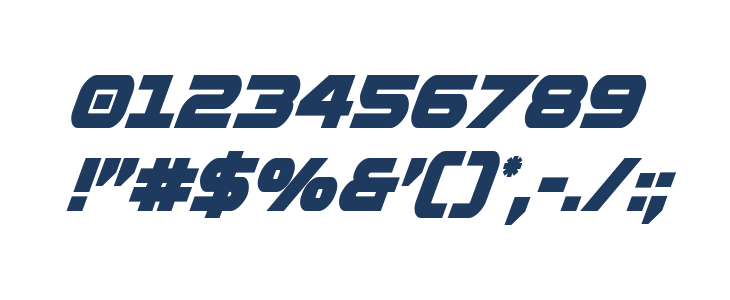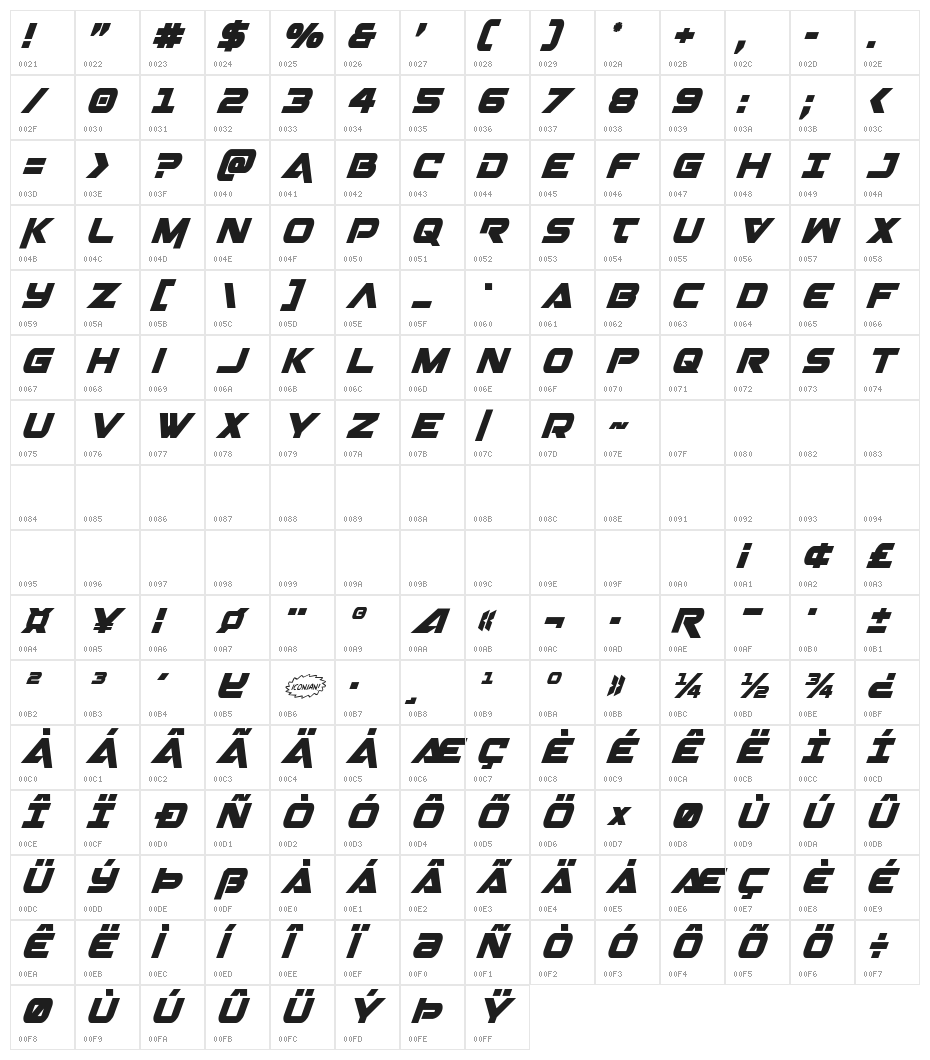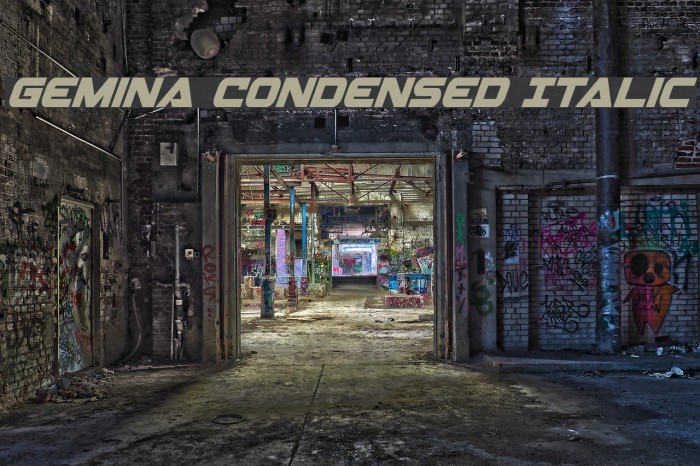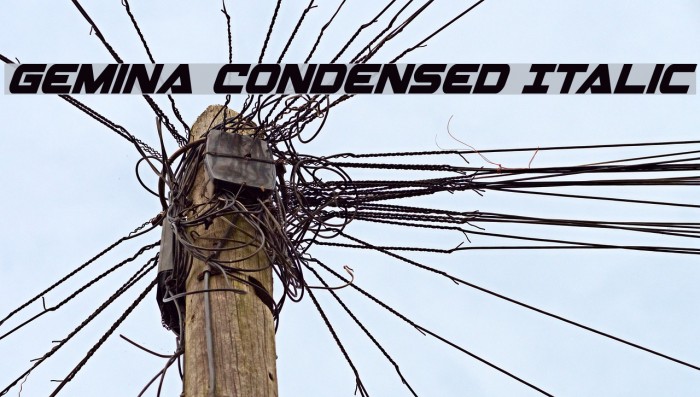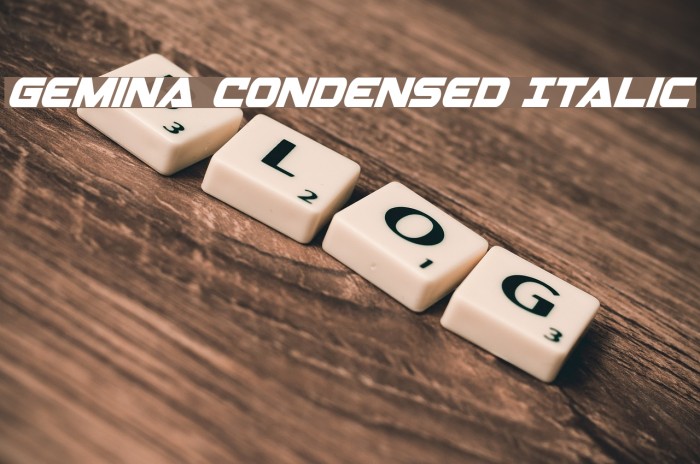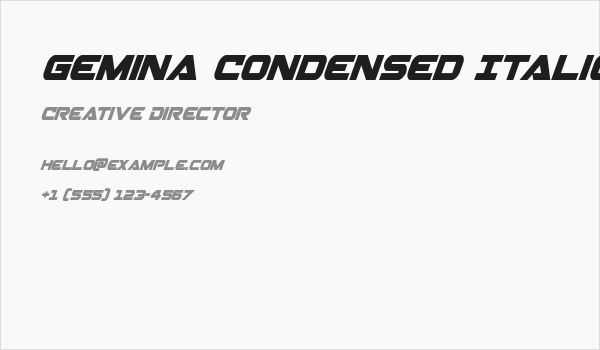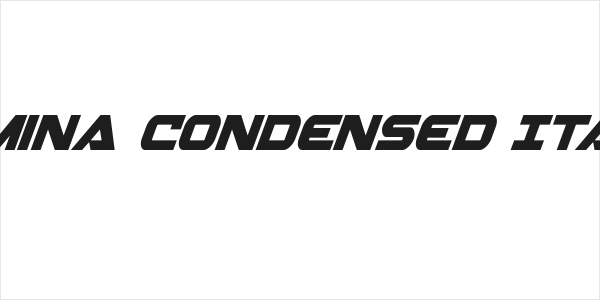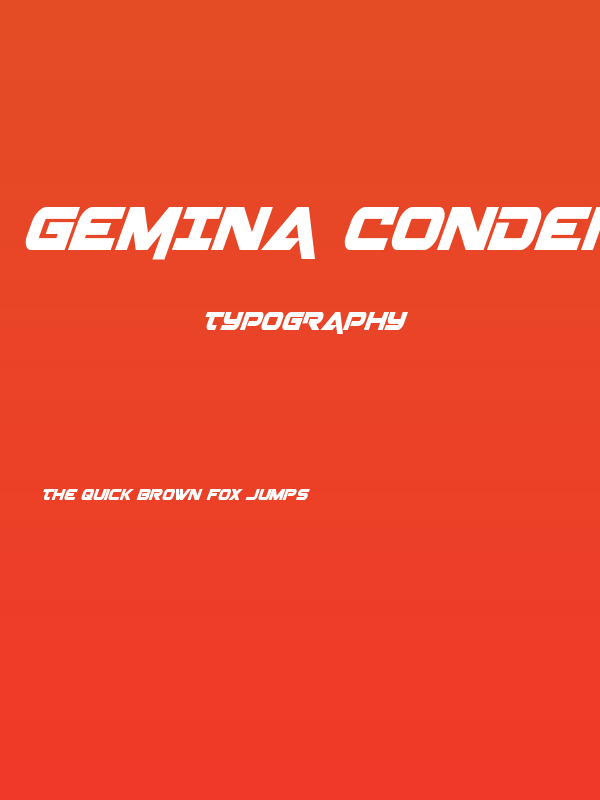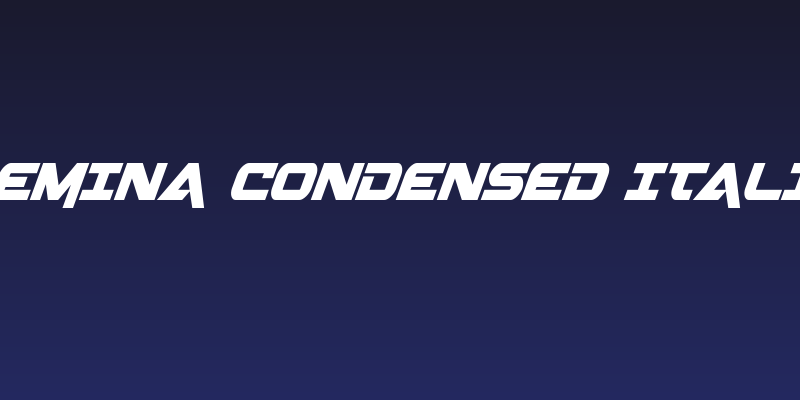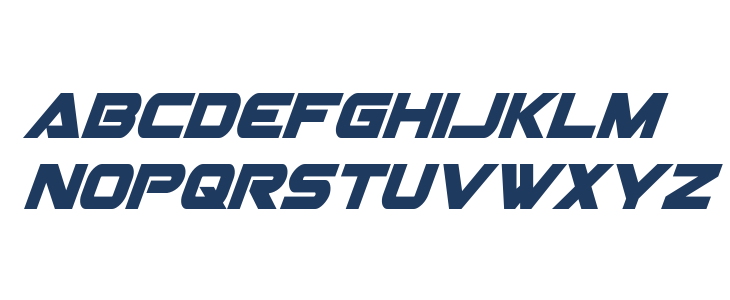
Gemina Condensed Italic Font
Gemina Condensed Italic Description
This font features a bold and dynamic style with a distinct italic slant, giving it a sense of motion and energy. The characters are condensed, which makes them appear compact and efficient, ideal for maximizing space without sacrificing readability. The strokes are thick and consistent, providing a strong visual impact. The angular design of the letters adds a modern and futuristic feel, making it suitable for contemporary projects. The font includes a full set of uppercase letters, numbers, and a variety of special characters, ensuring versatility in design applications.
| Proposed Projects | Ideal for sports branding, tech-related designs, dynamic posters, and modern advertising campaigns. |